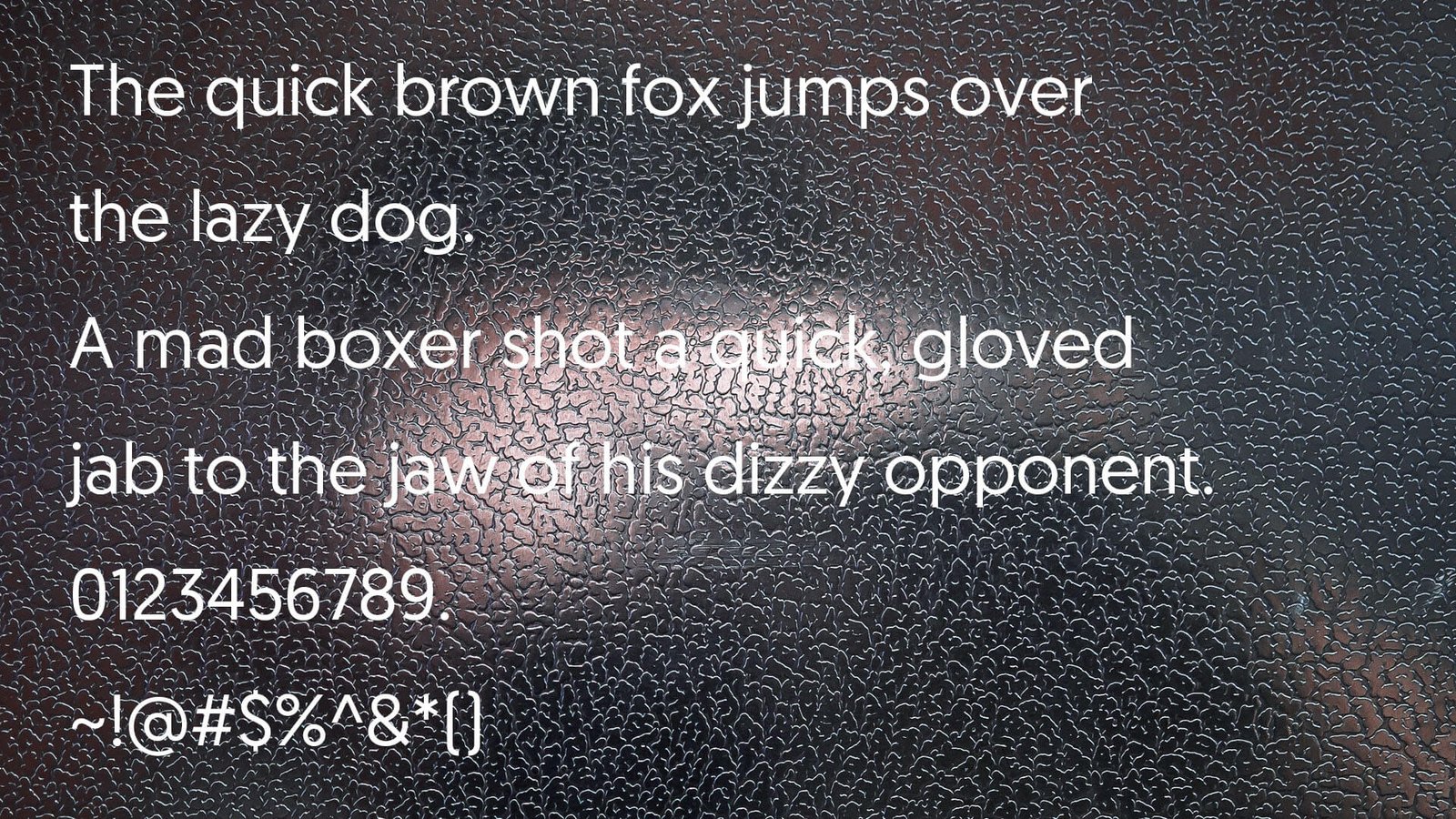
Discover one of the most popular fonts worldwide known as Geomanist font. Created by the Atipo font foundry, this Sans Serif font features a sleek and elegant design, making it perfect for a wide range of design tasks. Dive into the world of Geomanist font and elevate your design projects with its simplicity and beauty. Elevate your designs today with Geomanist font!
However, it contains a vast variety of glyphs. And it also has up to 6 different styles. This special font is mostly used for the Titles and Headings. But it is also suitable for a small size text. Similar fonts like Interstate font and Franklin Gothic font can be utilized as an alternative to this font.
| Name | Geomanist Font |
| Author | Atipo Foundry |
| Type | Sans Serif |
Geomanist Font Family